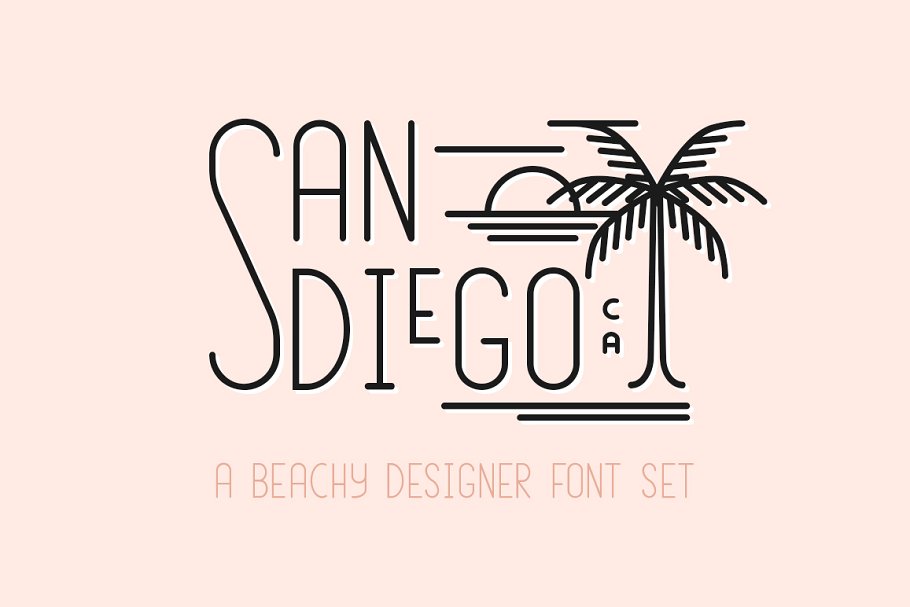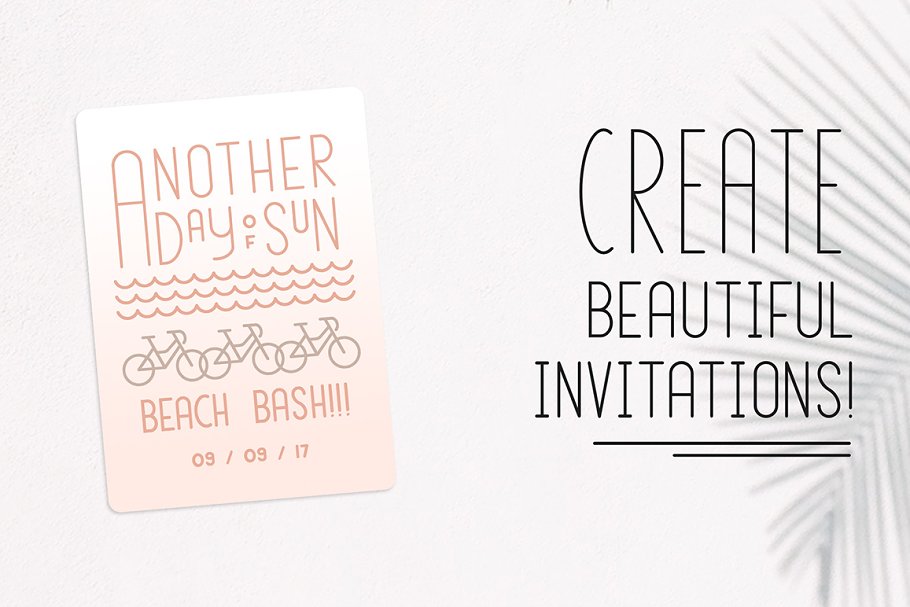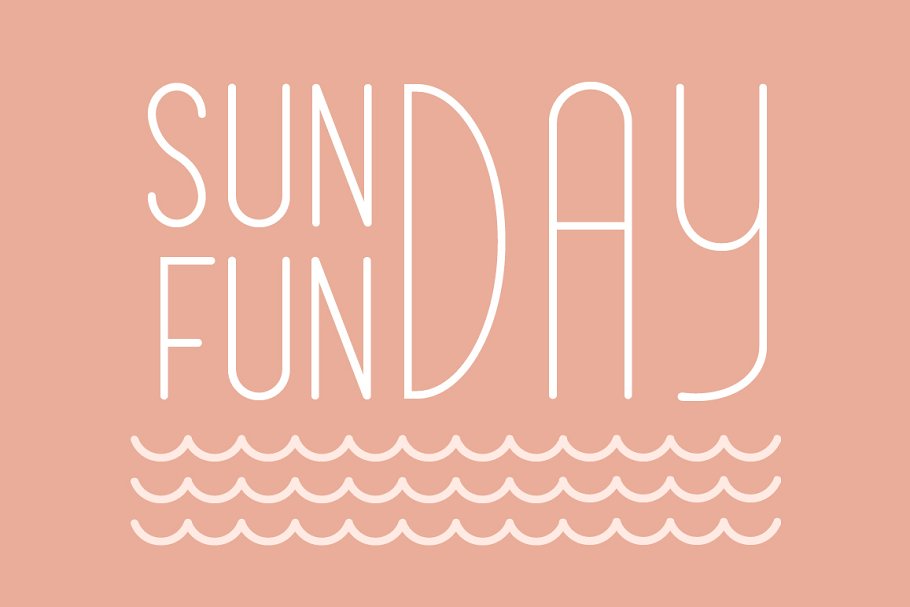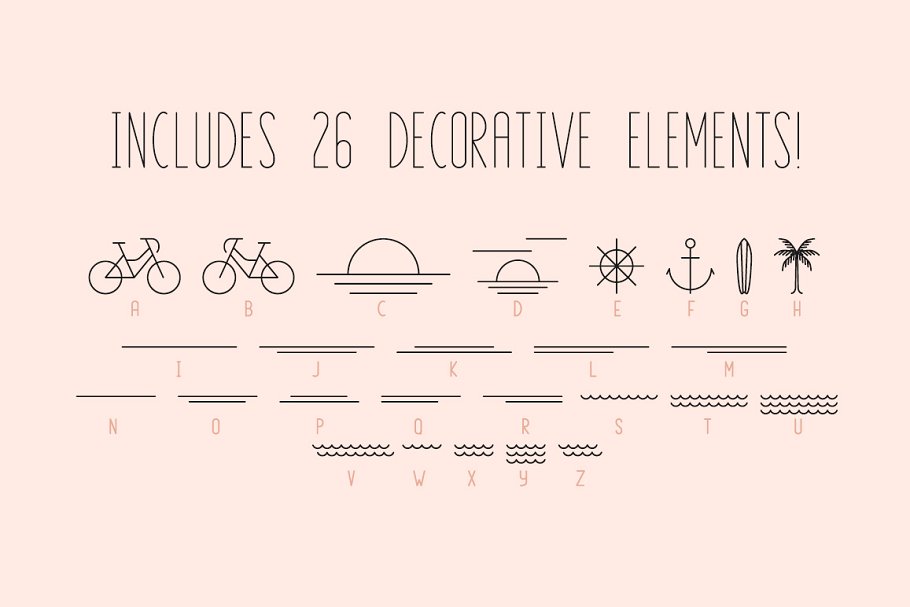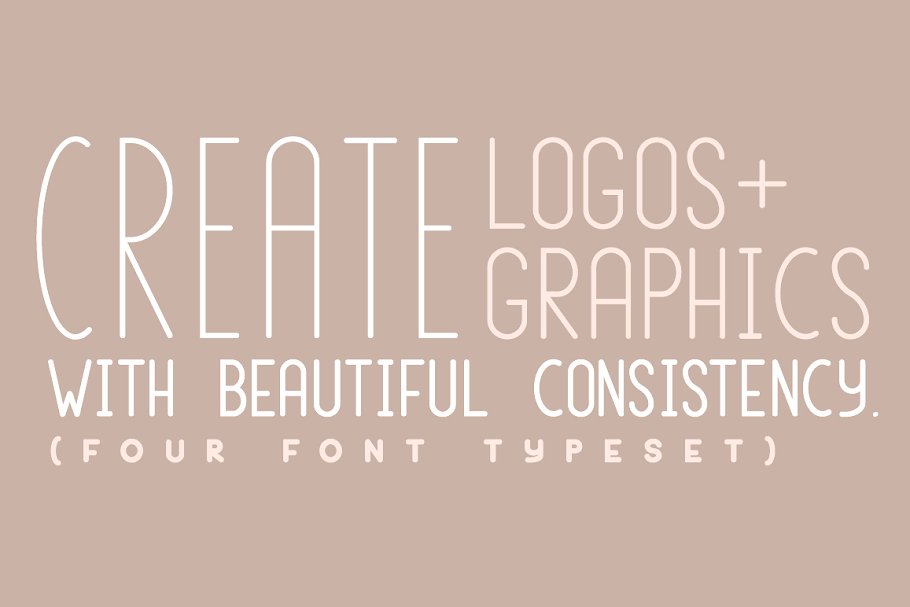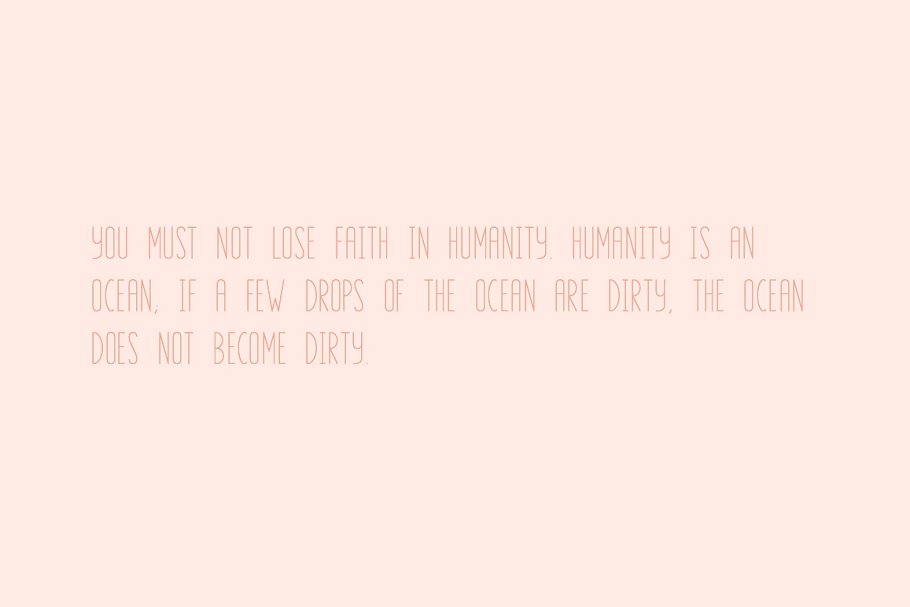
About the San Diego Beach Set Font
Make sure to watch the whole video to see this font in use!San Diego is a four-font typeset that is made specifically to make a designer’s job a little easier, It has a beautiful vintage style that makes retro line-style logos a breeze to make! It’s also perfect for invitations, signage, and so much more, There are four fonts in four different sizes (tall, medium, small, and extra small) that work together to create a cool vintage logo look
The best part? Each font size has the same stroke width, That way, you don’t have to worry about varying letter thickness messing with the consistency of your design, Even the decorative elements come in two sizes (tall and medium) to accompany the main letter sizes
Fair warning: This font is mainly for designers and those who have experience in Photoshop and Illustrator, Many of my other fonts are very simple to use, but this one is a bit more complex, Take a look at the video thumbnail to see what it looks like in use!The line heights are currently meant to make switching letters within a single typed word easy
You can observe this in the video, The extra-small size requires a little more line height adjustment, as can be seen, In this pack, you’ll get:San Diego Tall – a sleek and slender vintage style fontSan Diego Medium – a font that is approximately half the size of the tall version, making word/letter contrast simpleSan Diego Small – a font that is approximately half the size of the medium version, accompanying it beautifully with accent lettersSan Diego Extra Small – a font that is approximately half the size of the small version
This one is great for more decorative type, like state abbreviations, years of establishment, etc, San Diego Decorative Tall – 26 awesome decorative elements that correspond with the tall size fontSan Diego Decorative Medium – 26 awesome decorative elements that correspond with the medium size font